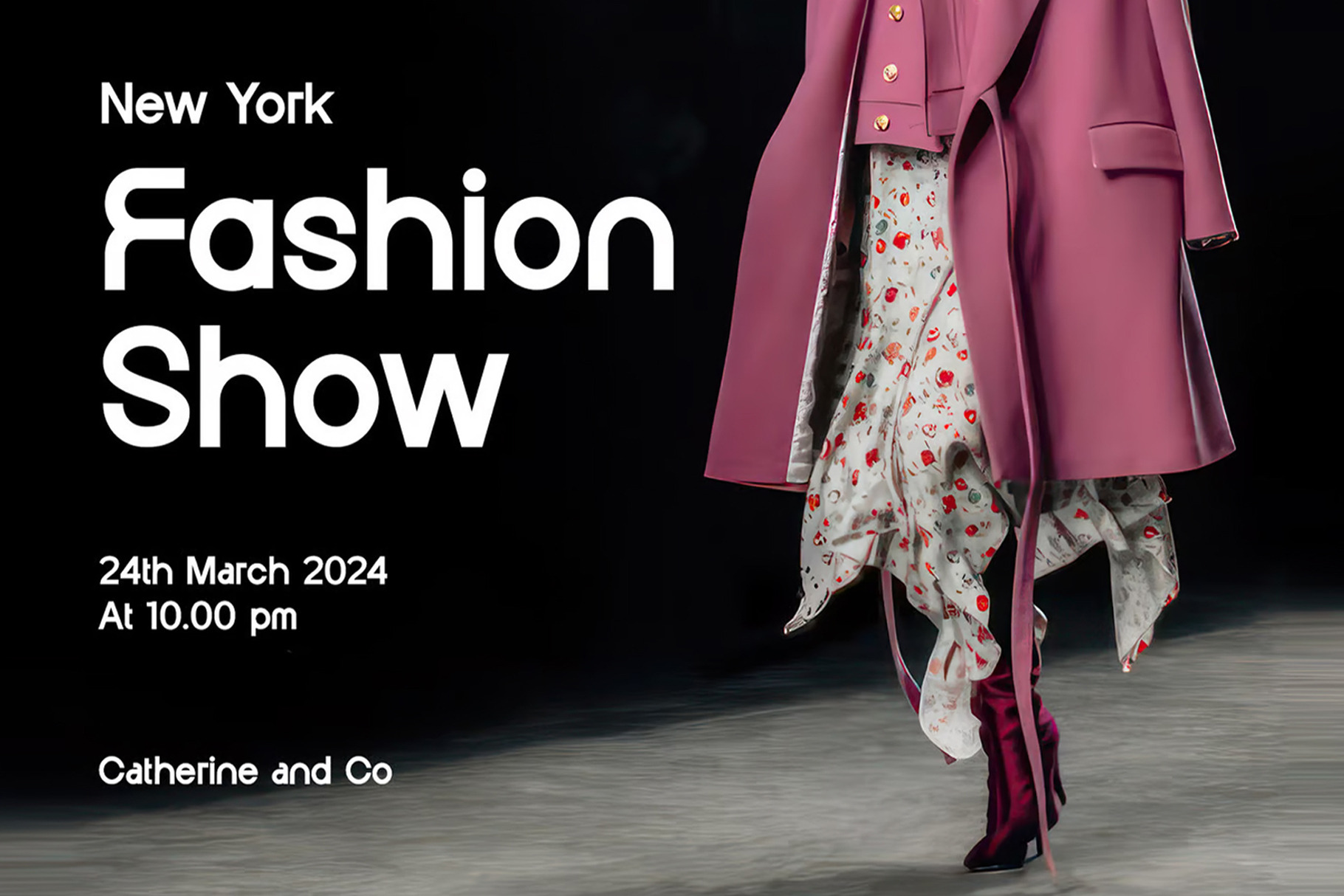
Majestic Font
This is a new font called Majestic. This font is stylish, clean, clear, firm and still looks luxurious. This font is suitable for use in business, business cards, logo names, brochures, posters etc.